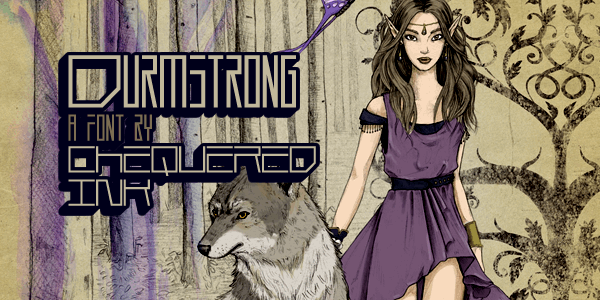
Free Durmstrong Font
Download and enjoy this free durmstrong font. Cool typeface to showcase your designs in a modern way. This free typeface file was found from the amazing source called Font Space. This is absolutely beautiful font so you can easily make world-class designs.